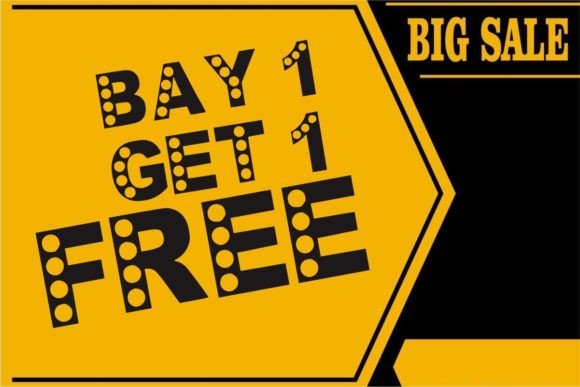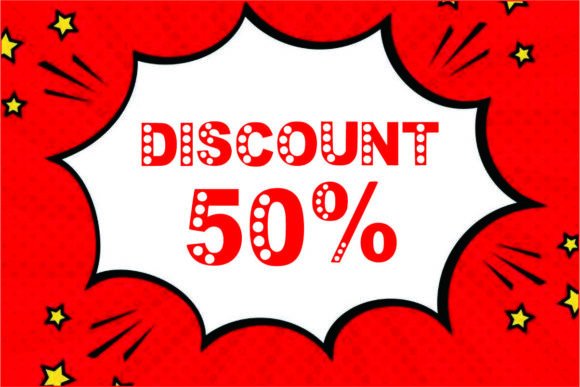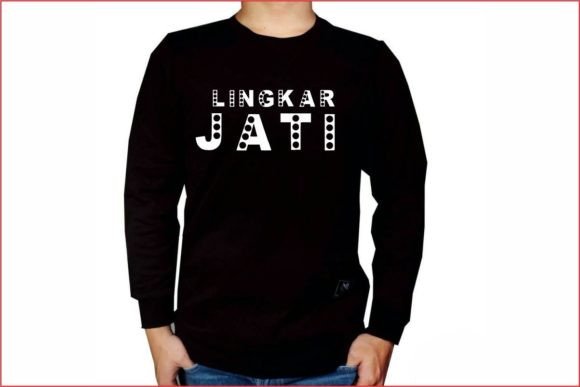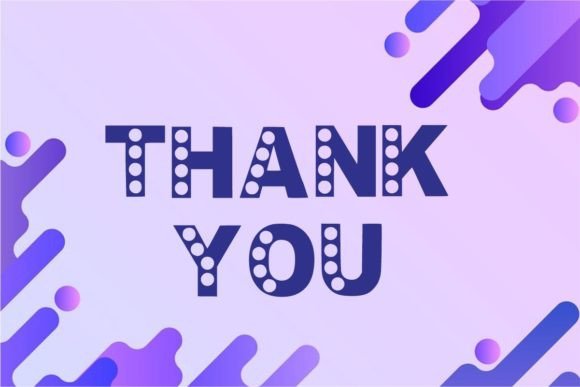
Introduction to Lingkarjati Font
Lingkarjati is a creative and eye-catching display font.
Whether youโre using it for promo designs, digital designs, clothes, presentations, or screen printing designs, this font is the perfect choice .
Key Features of Lingkarjati Font
Why Choose Lingkarjati Font?
Lingkarjati Font offers exceptional quality and versatility, making it a valuable addition to your design toolkit. Whether you’re creating for personal projects or commercial use, Lingkarjati Font delivers professional results.